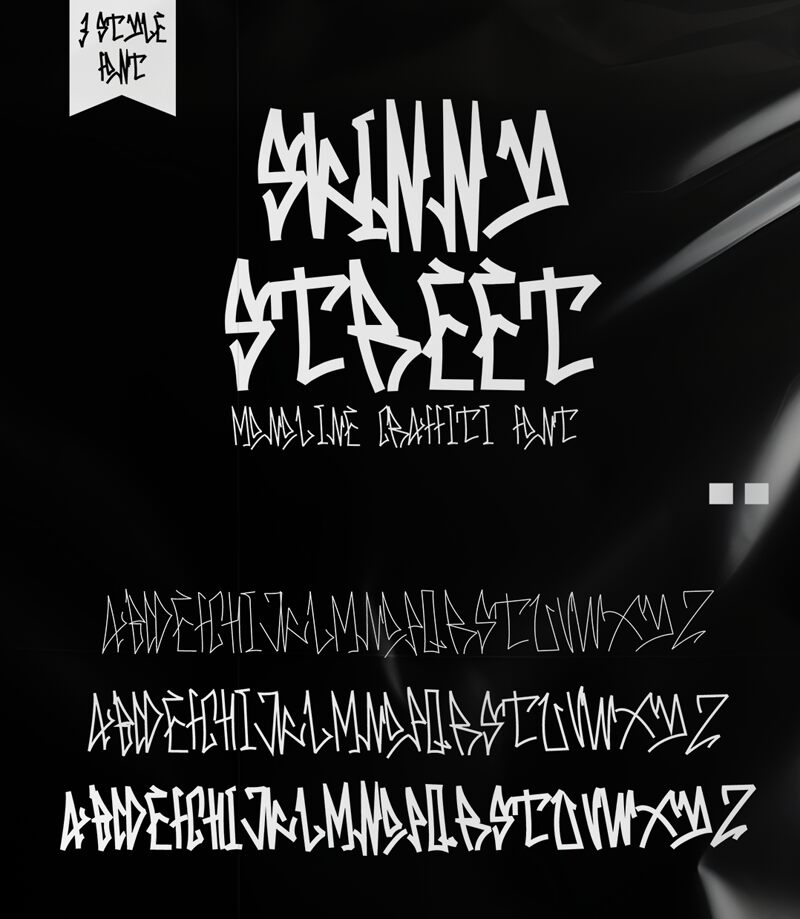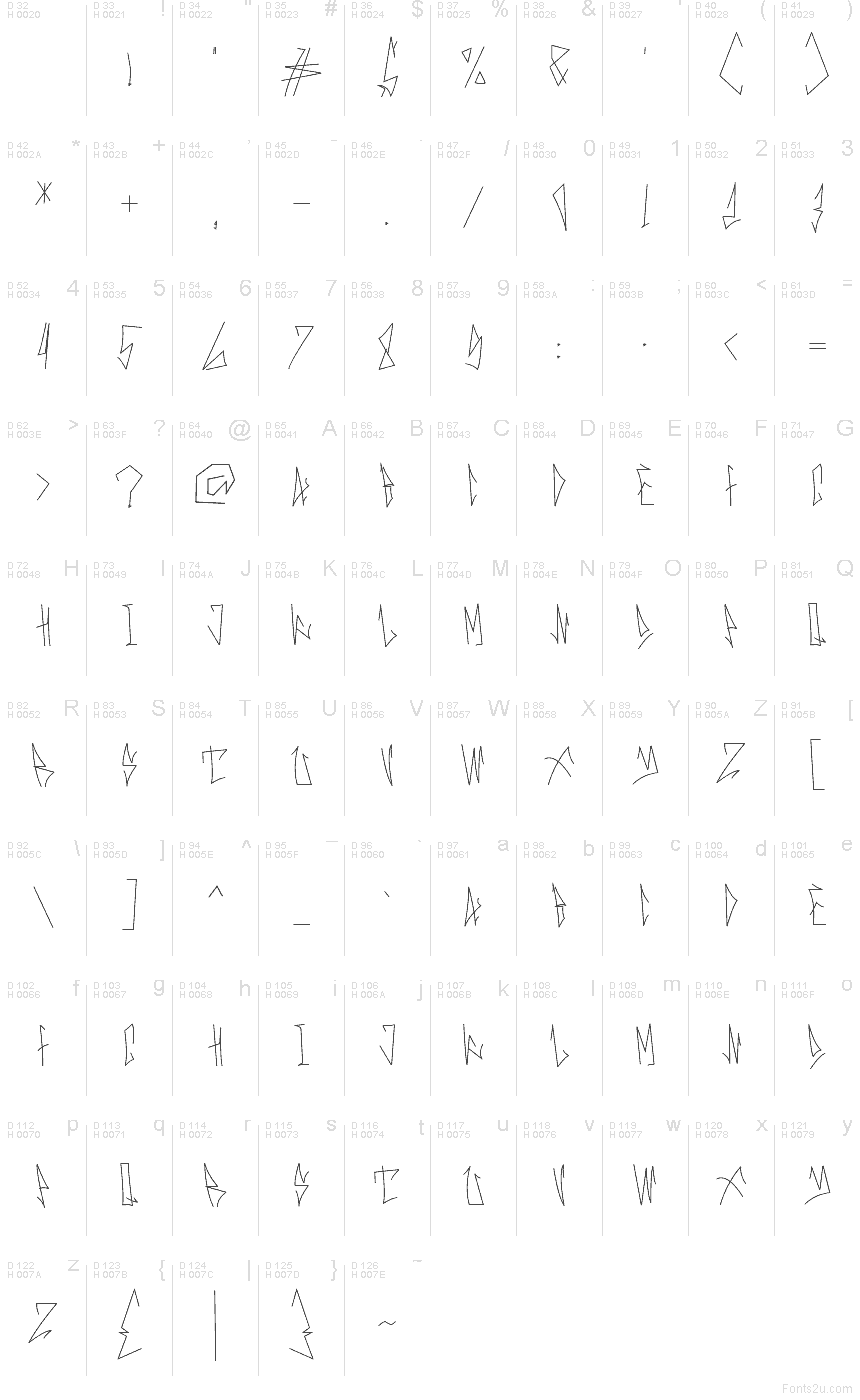
Skinny Street Light
Skinny Street Light font by Cikareotype Studio is a free graffiti typeface that drags the edge of a pencil across concrete and turns it into letters. Hyper-thin strokes, jagged angles, and sharp, needle-like curves give every word a scratchy, back-alley energy. Sitting within the Skinny Street family, this style feels quick and improvised, like tags scribbled in a single breath, yet it stays legible enough to read at a glance.
Using Skinny Street Light, your text instantly picks up a gritty, underground tone that works beautifully for album covers, skate zines, streetwear logos, poster art, Twitch graphics, and urban event flyers. This free font really sings at larger sizes where its wiry details can stretch out. Pair it with a clean, neutral sans serif for body copy so the raw, scribbled character of Skinny Street Light stays in the spotlight.